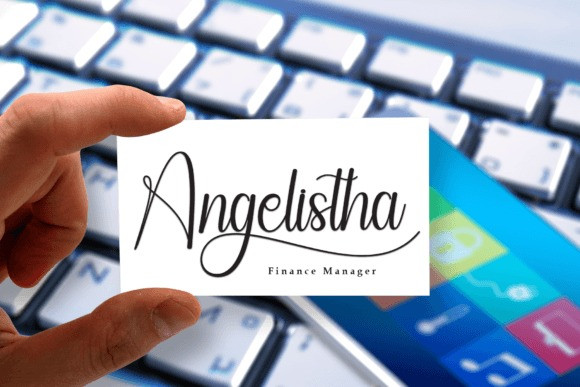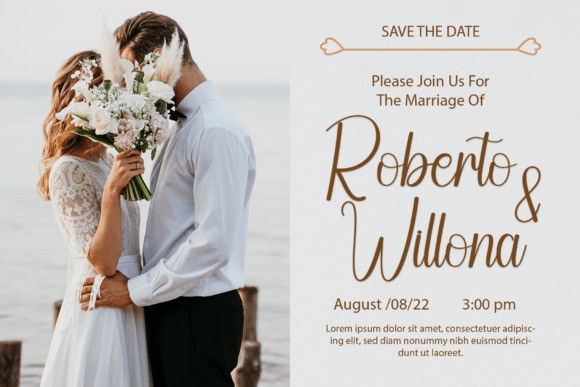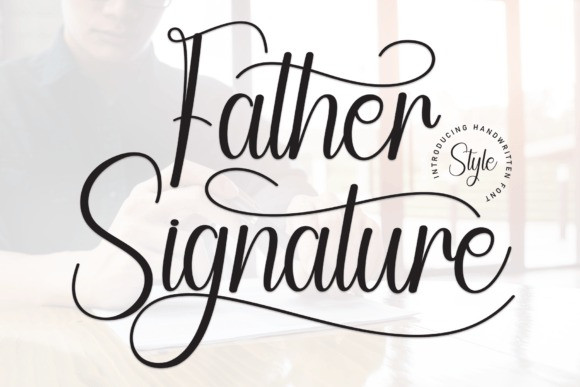
Father Signature Typeface
Father Signature Typeface is a charming handwritten font that exudes warmth and authenticity. With its carefully crafted strokes, this font captures the essence of a father’s signature – a blend of strength and tenderness. Whether used for personal notes, invitations, or creative projects, Father Signature adds a touch of familiar elegance, making every word feel like a heartfelt message from dad.